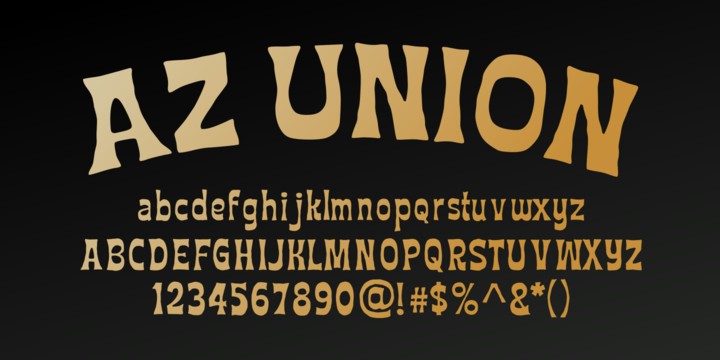
az union
Explore the Versatility of AZ Union Font
AZ Union, created by Alex Smith in 2023, is a bold and distinctive typeface designed to make a statement. Its contemporary design is perfect for a range of applications including web design, branding, logos, and print materials. AZ Union delivers both readability and unique aesthetic appeal, making it an essential tool for graphic designers and creatives seeking to leave a strong visual impact.
Features and Formats of AZ Union Font
The Inspiration Behind AZ Union Font
Inspired by urban street art and contemporary graphic design trends, AZ Union was crafted to resonate with a modern audience. The font embodies a perfect blend of uniqueness and versatility, allowing designers to push creative boundaries while remaining polished and professional.
Ideal Use Cases for AZ Union Font
AZ Union is suited for a multitude of design purposes, from web layouts that demand eye-catching typography to print advertisements that require robust, readable fonts. Its distinctive style also makes it a great choice for branding projects seeking to establish an identity that stands out.